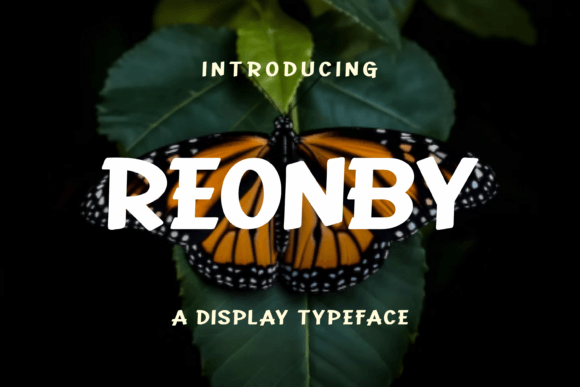
Immerse yourself in the world of typography with Reonby Font, a captivating display font that exudes boldness and style. Unleash your creativity with this alluring font, perfect for crafting stunning posters in Canva and leaving an unforgettable impression.
Reonby Font is your gateway to creating captivating posters that speak volumes. Its all-caps design commands attention, ensuring your message stands out from the crowd. With its trendy vibe, Reonby Font adds a touch of contemporary flair to your projects, making them instantly captivating.
Whether you're a seasoned graphic designer or just starting your creative journey, Reonby Font is your perfect companion. Its user-friendly design makes it effortless to incorporate into your projects, allowing you to focus on expressing your ideas without technical hurdles.
With Reonby Font, the possibilities are endless. Craft eye-catching posters for your social media campaigns, design stunning invitations that leave a lasting impression, or create unique greeting cards that convey your heartfelt messages. Unleash your imagination and let Reonby Font elevate your designs to new heights.
Don't settle for ordinary fonts that blend into the background. Choose Reonby Font and watch your creations come alive with personality and charm. Its bold lines and striking presence demand attention, leaving your audience captivated and eager for more.
Reonby Font is not just a font; it's an expression of your creativity, a tool to bring your artistic visions to life. Its versatility knows no bounds, allowing you to explore a wide spectrum of design possibilities. From bold and impactful posters to elegant and sophisticated greeting cards, Reonby Font adapts seamlessly to your creative needs.
Join the growing community of designers and creatives who have discovered the magic of Reonby Font. Experience the joy of creating posters that resonate with your audience, leaving an indelible mark on their minds. Let Reonby Font be your creative catalyst, transforming your ideas into masterpieces.